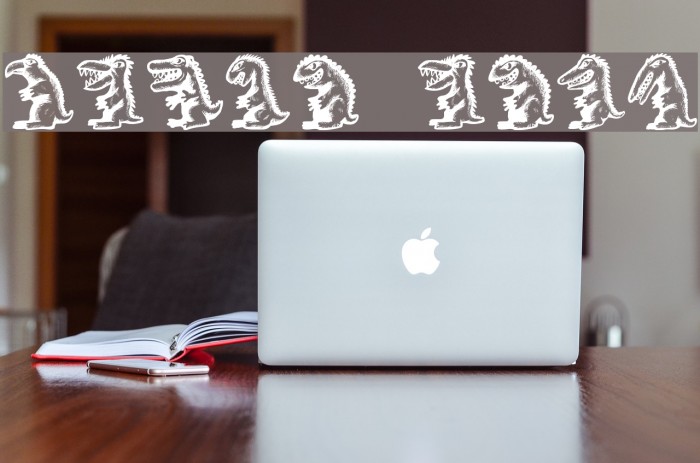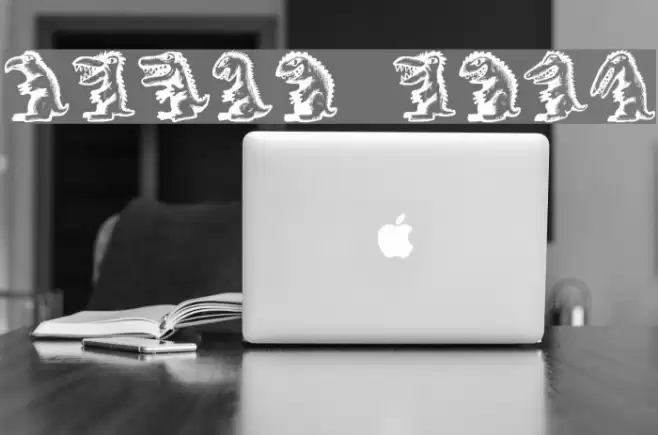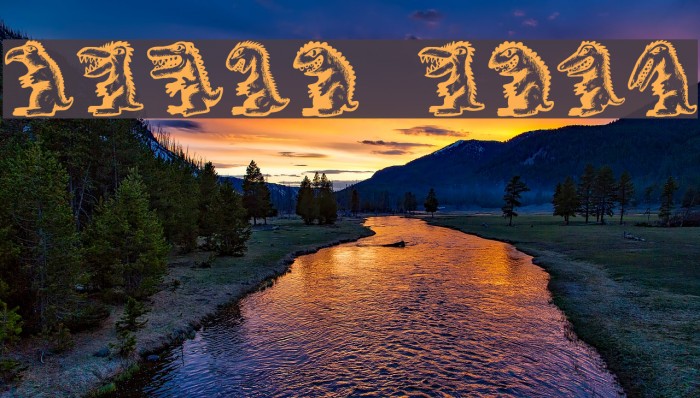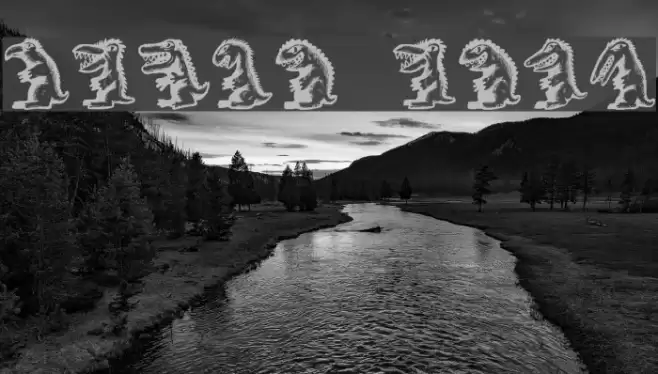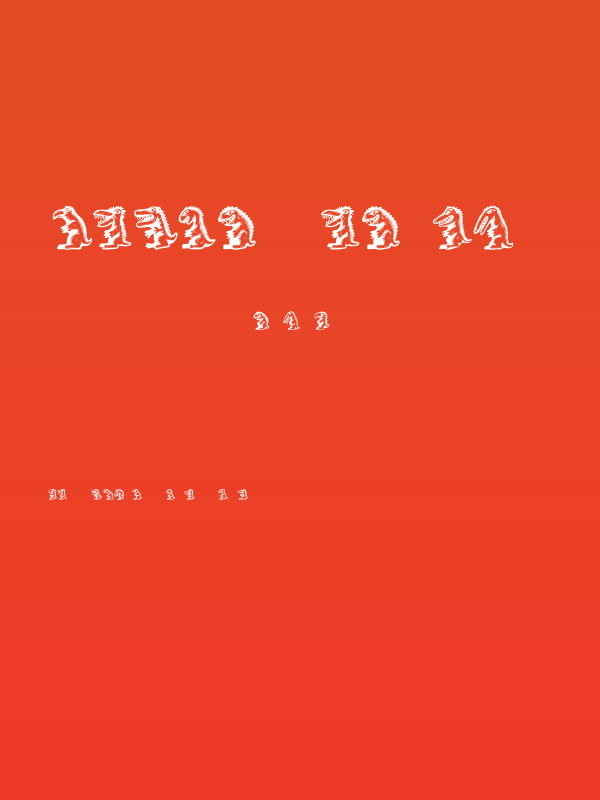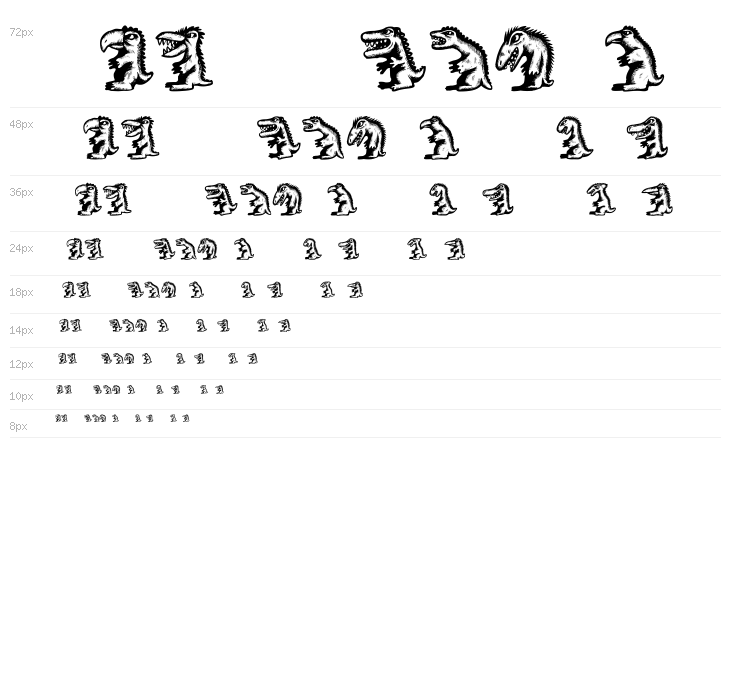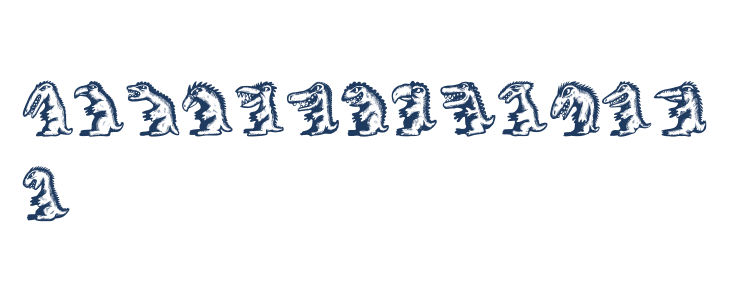
Being Regular Font
Being Regular Description
This font features a playful and whimsical design, with each character resembling a small dinosaur or creature. The letters are crafted with a high level of detail, showcasing scales and textures that give them a three-dimensional appearance. The overall style is decorative and imaginative, making it ideal for projects that require a fun and engaging visual element. The characters are bold and have a consistent weight, with a normal width and medium contrast in stroke thickness. The spacing between characters is relatively tight, enhancing the compact and cohesive look of the font.
| Proposed Projects | Ideal for children's books, playful branding, themed party invitations, and educational materials. |